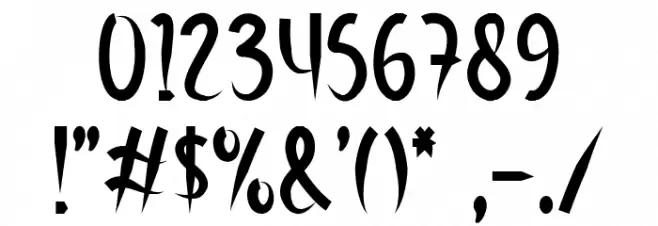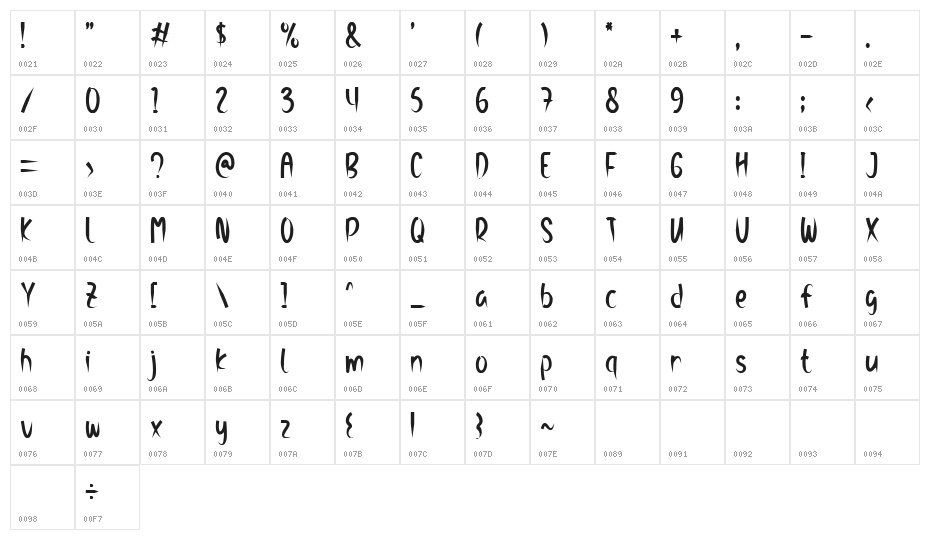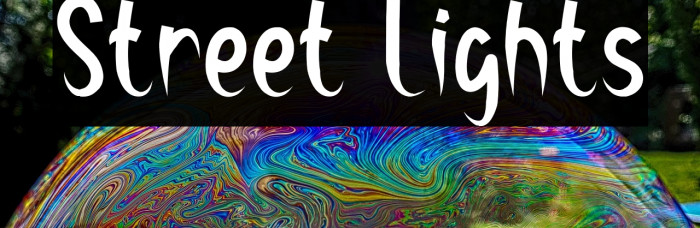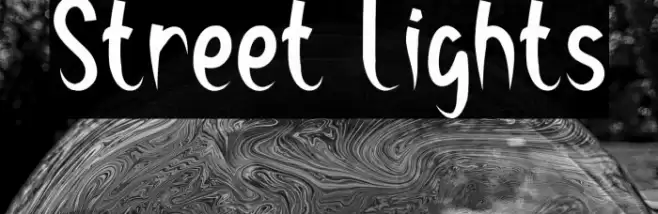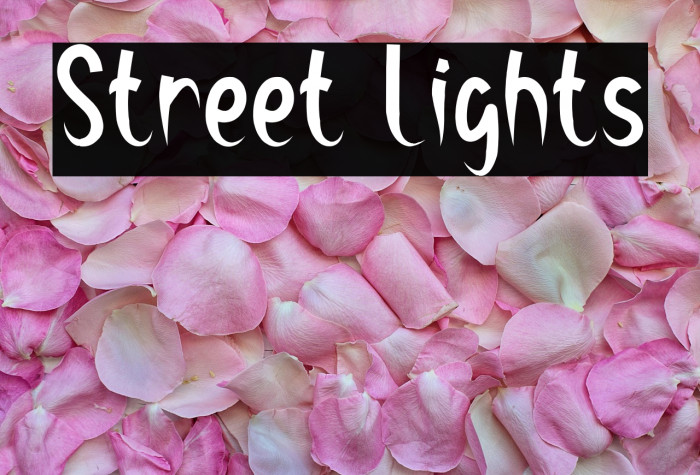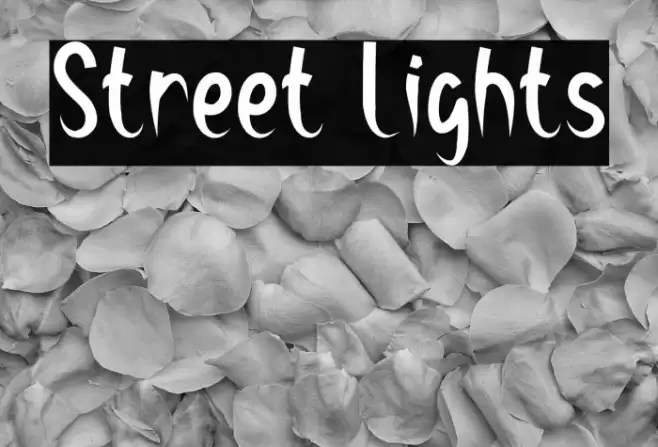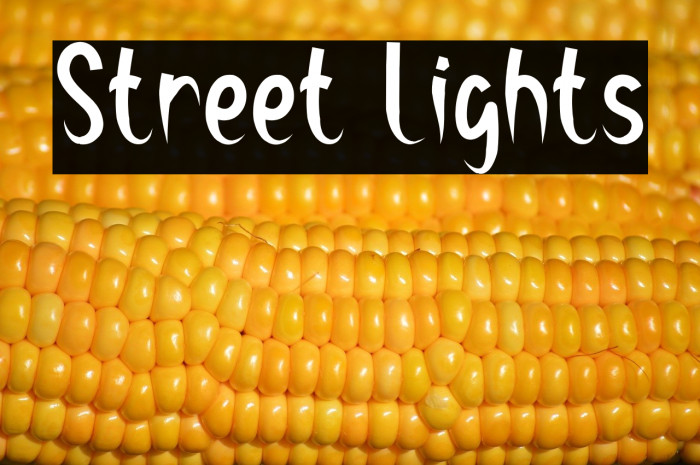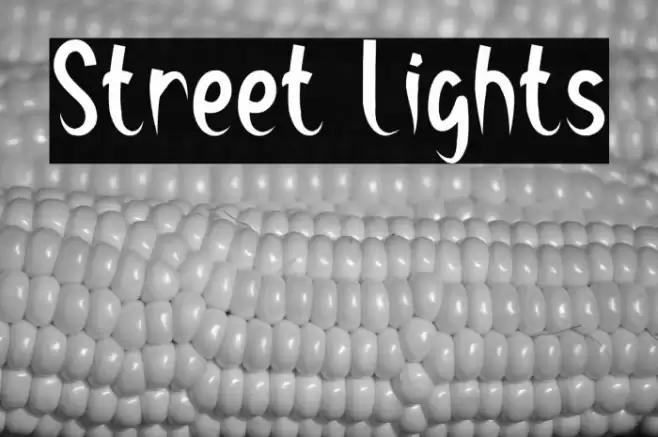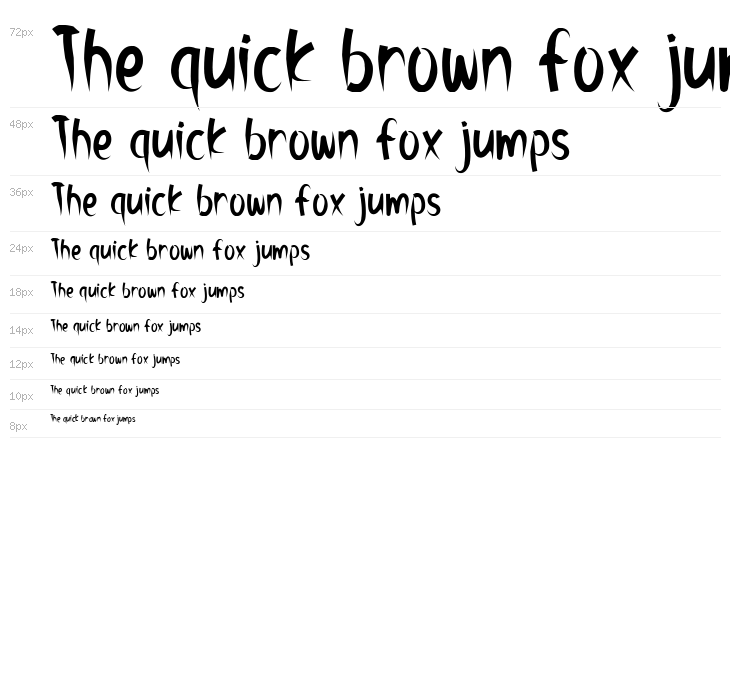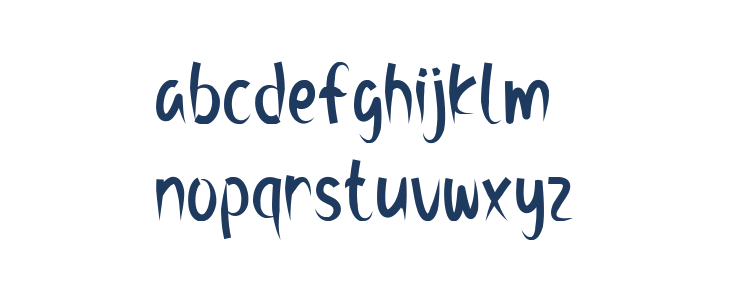
Street Lights Font
Street Lights Description
This font features a dynamic and energetic style, characterized by its sharp, angular strokes and playful curves. The uppercase letters exhibit a bold presence with exaggerated serifs and varying stroke widths, creating a sense of movement and flair. The lowercase letters maintain this lively aesthetic, with unique forms that add personality and charm. Numbers and special characters follow the same design principles, ensuring consistency across all glyphs. The overall appearance is both artistic and eye-catching, making it suitable for creative and informal applications.